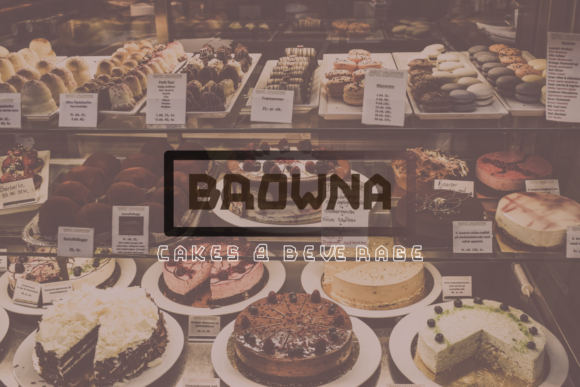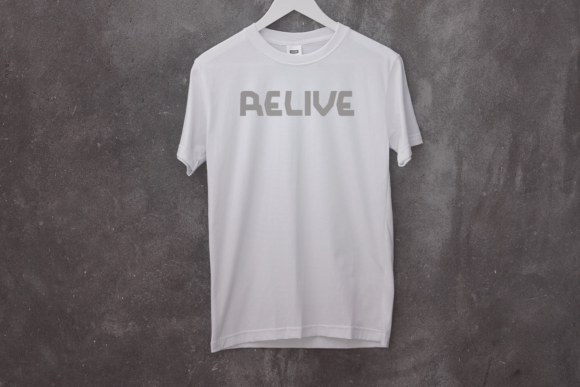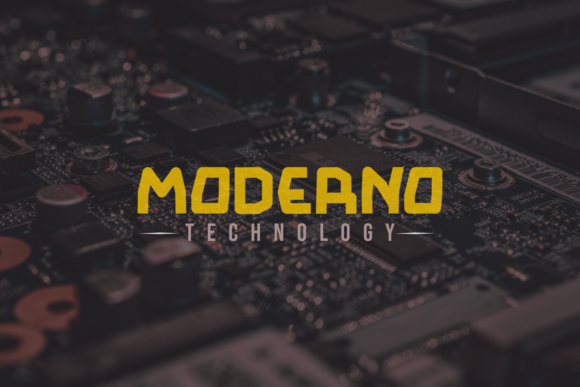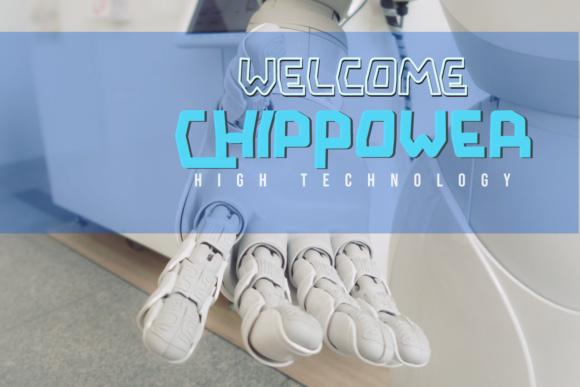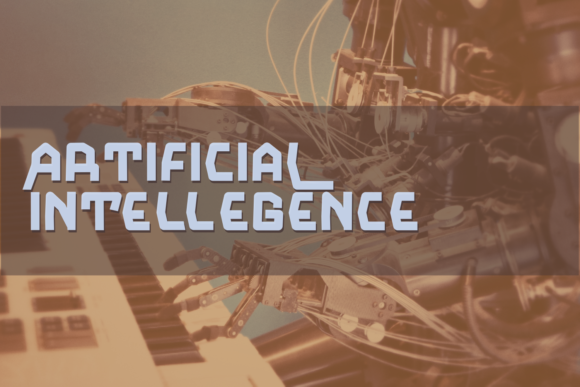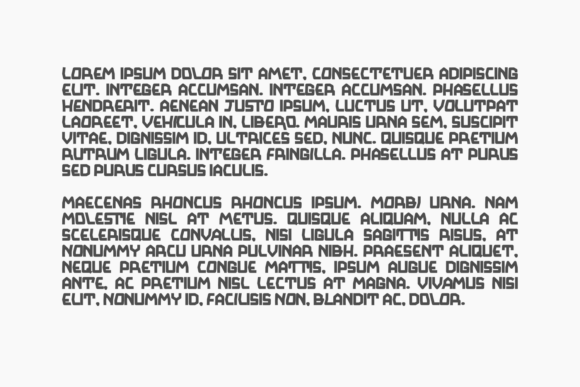
Breloved Font: The Ultimate Display Font for Creative Projects
Are you tired of using the same old fonts for your creative projects? Look no further than Breloved, a bold, chunky lettered, and quirky display font that’s sure to make your ideas stand out. In this article, we’ll dive into the world of Breloved and explore its features, benefits, and uses, making it a must-read for designers and crafters alike.
What is Breloved Font?
Breloved is a unique and eye-catching display font that’s perfect for adding a touch of personality to your creative projects. Its bold and chunky lettering makes it ideal for headlines, titles, and other display text, while its quirky and playful vibe adds a dash of whimsy to any design.
Key Features of Breloved Font
- Bold and Chunky Lettering: Breloved’s lettering is thick and substantial, making it perfect for creating eye-catching headlines and titles.
- Quirky and Playful Vibe: Breloved’s quirky and playful vibe adds a touch of personality to any design, making it ideal for creative projects that require a bit of whimsy.
- Display Font: Breloved is specifically designed as a display font, making it perfect for use in headlines, titles, and other display text.
- Easy to Read: Despite its bold and chunky lettering, Breloved is surprisingly easy to read, making it a great choice for use in a variety of creative projects.
Benefits of Using Breloved Font
So why choose Breloved for your creative projects? Here are just a few benefits of using this amazing display font:
- Adds Personality to Your Design: Breloved’s quirky and playful vibe adds a touch of personality to any design, making it perfect for creative projects that require a bit of whimsy.
- Grabs Attention: Breloved’s bold and chunky lettering makes it perfect for grabbing attention and drawing the eye to your headlines and titles.
- Versatile: Breloved can be used in a variety of creative projects, from posters and flyers to social media graphics and website headers.
- Easy to Pair with Other Fonts: Breloved pairs surprisingly well with other fonts, making it easy to create visually appealing and harmonious designs.
Uses for Breloved Font
So what can you use Breloved for? Here are just a few ideas to get you started:
- Posters and Flyers: Breloved is perfect for creating eye-catching posters and flyers that grab attention and draw the eye.
- Social Media Graphics: Breloved’s bold and chunky lettering makes it perfect for use in social media graphics, such as Facebook and Twitter headers.
- Website Headers: Breloved can be used to create visually appealing and attention-grabbing website headers that draw the eye and add personality to your website.
- Branding and Packaging: Breloved can be used to add a touch of personality to your branding and packaging, making it perfect for businesses that want to stand out.
Tips for Using Breloved Font
Here are a few tips for getting the most out of Breloved:
- Use it Sparingly: Breloved is a bold and attention-grabbing font, so use it sparingly to avoid overwhelming your design.
- Pair it with Other Fonts: Breloved pairs surprisingly well with other fonts, so experiment with different pairings to find the one that works best for your design.
- Experiment with Colors: Breloved looks great in a variety of colors, so experiment with different colors to find the one that works best for your design.
| Author | Mozyen Studio |
In conclusion, Breloved is a bold, chunky lettered, and quirky display font that’s perfect for adding a touch of personality to your creative projects. Its unique features, benefits, and uses make it a must-have for designers and crafters alike. So why not give Breloved a try and see how it can make your creative projects stand out?